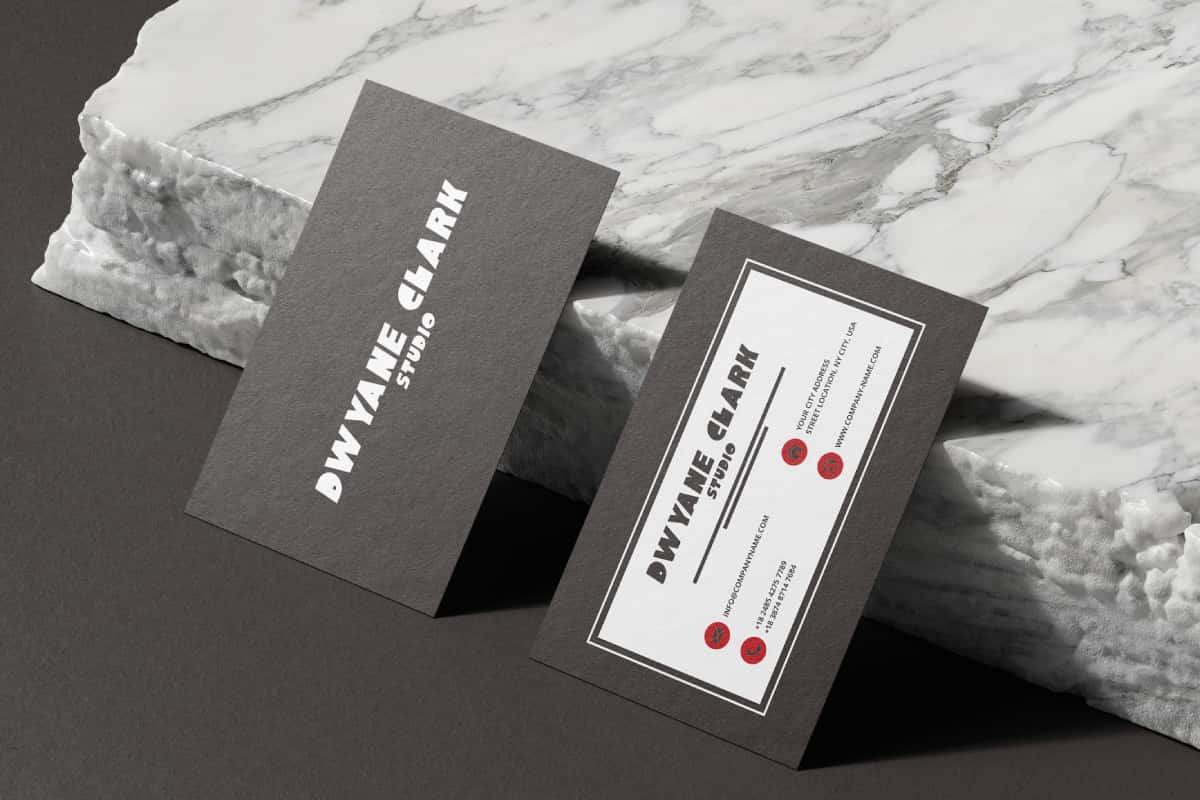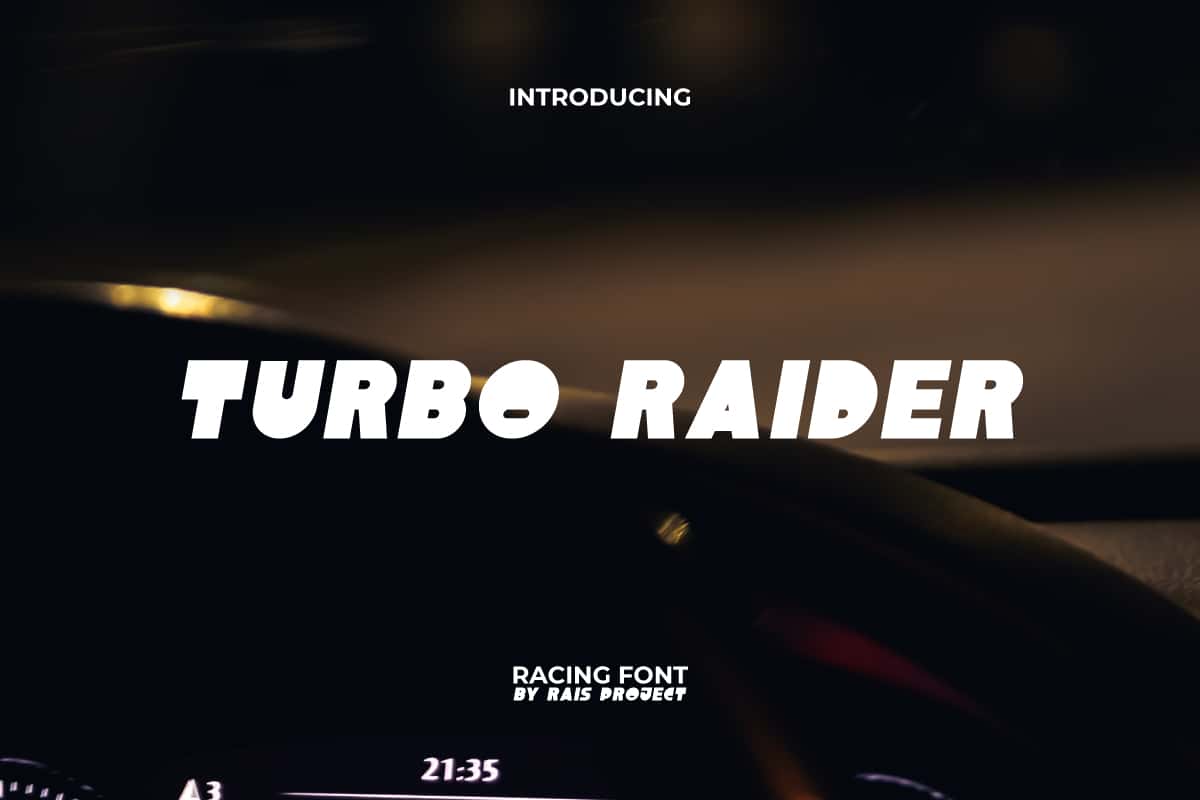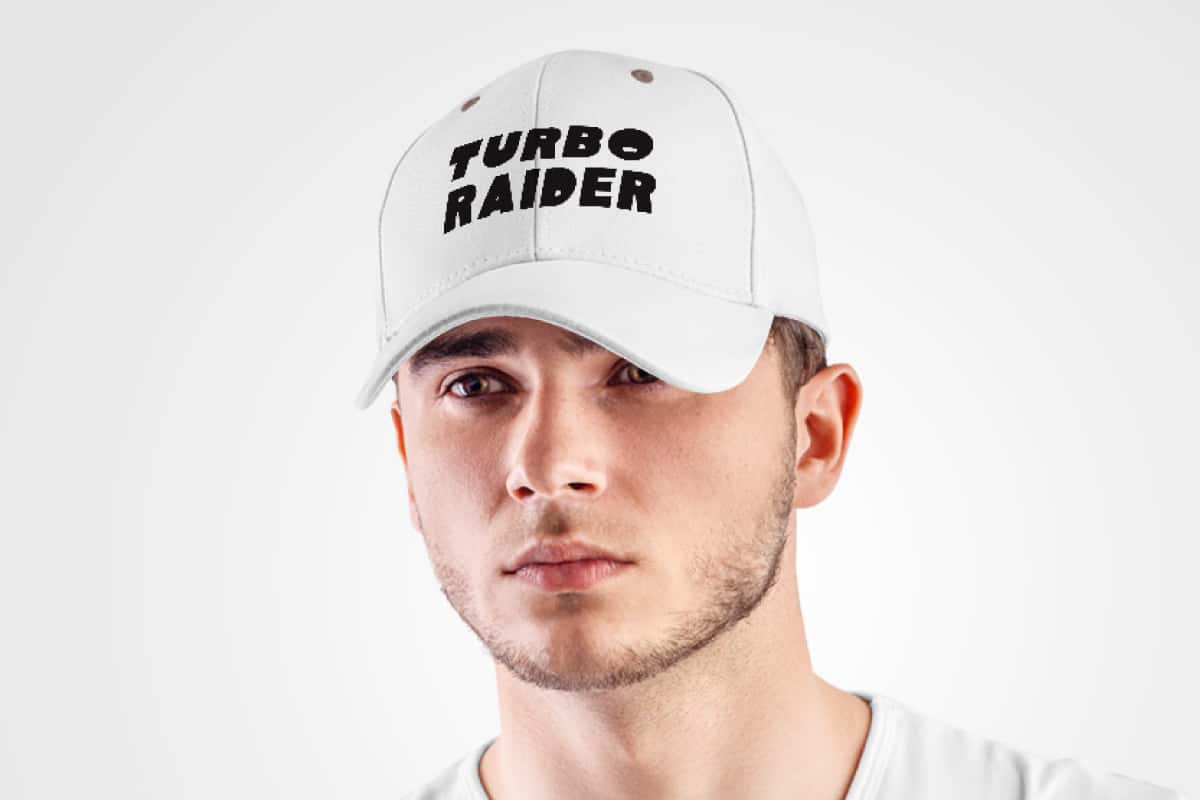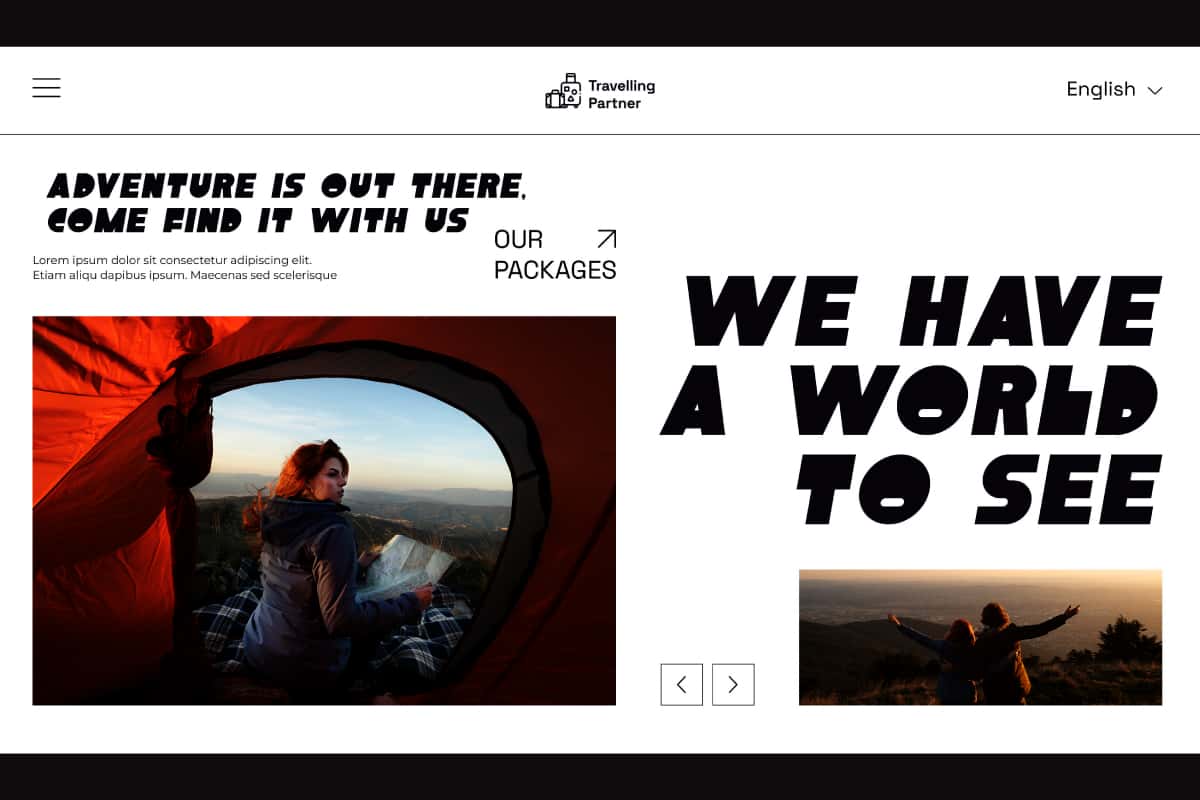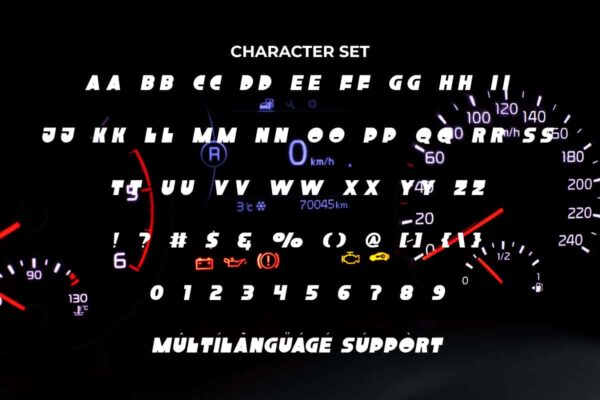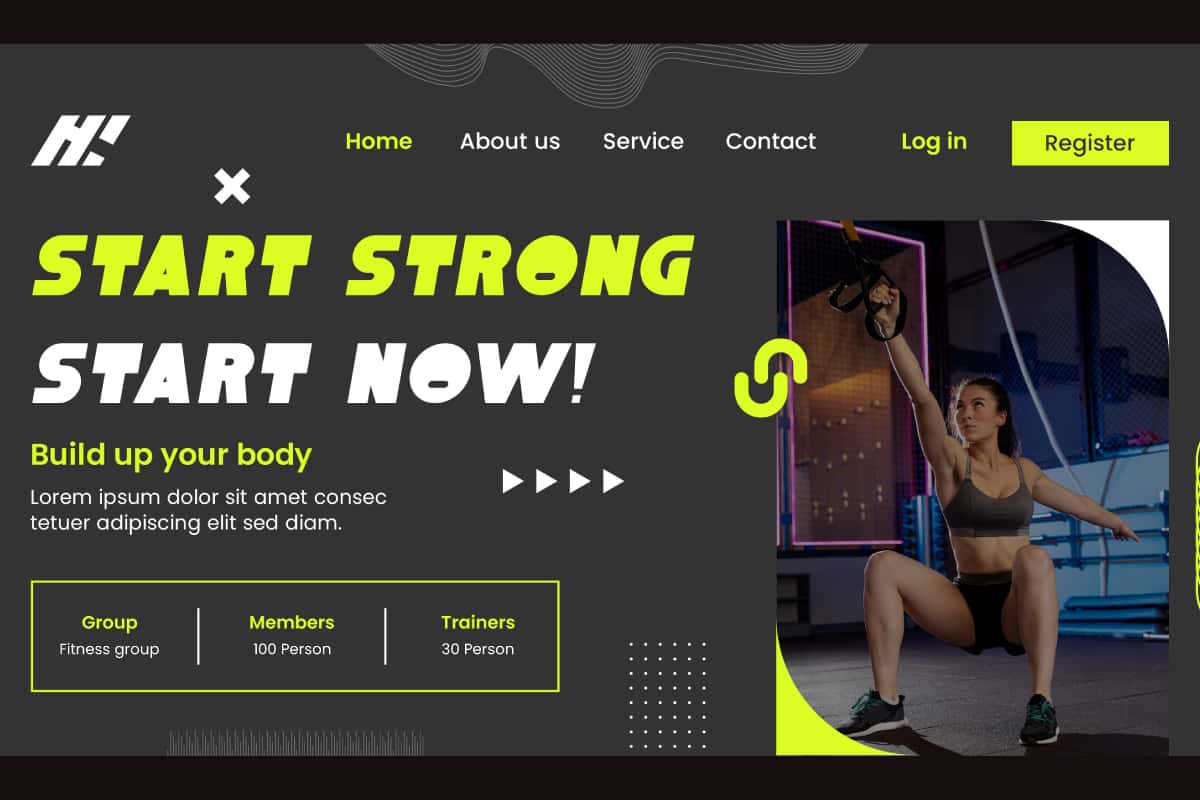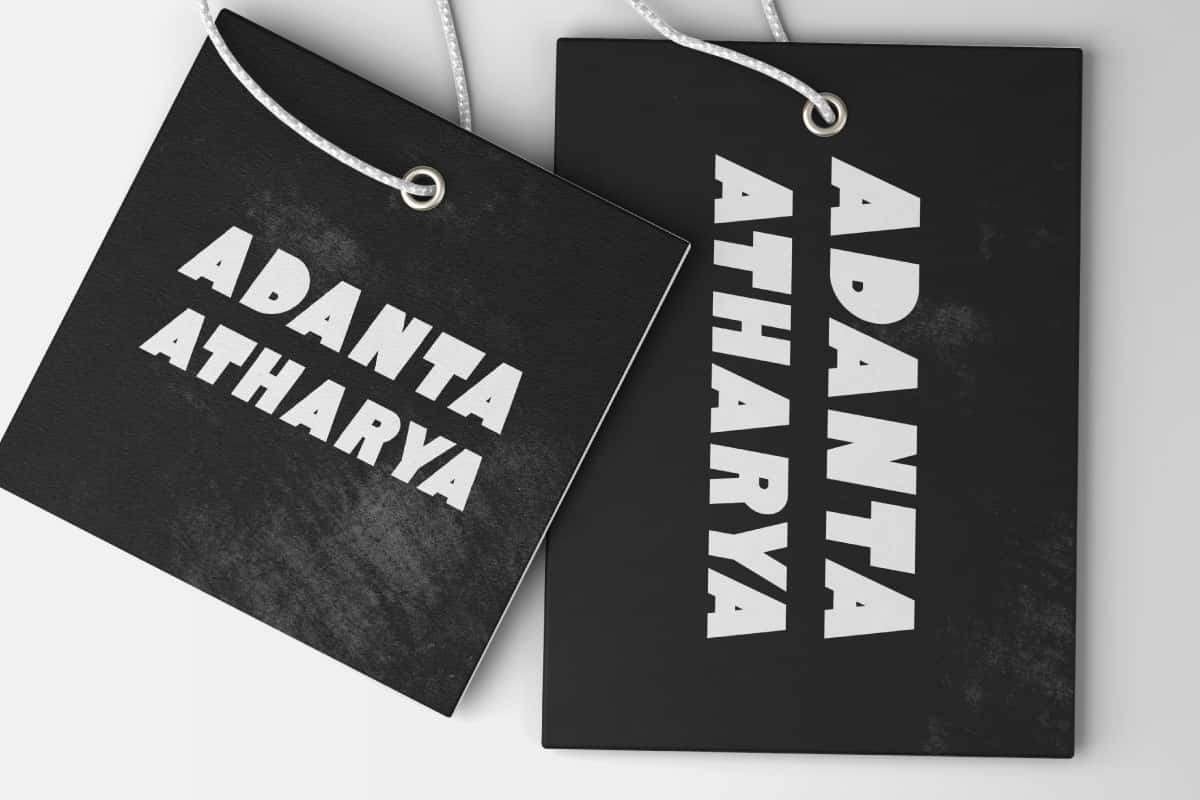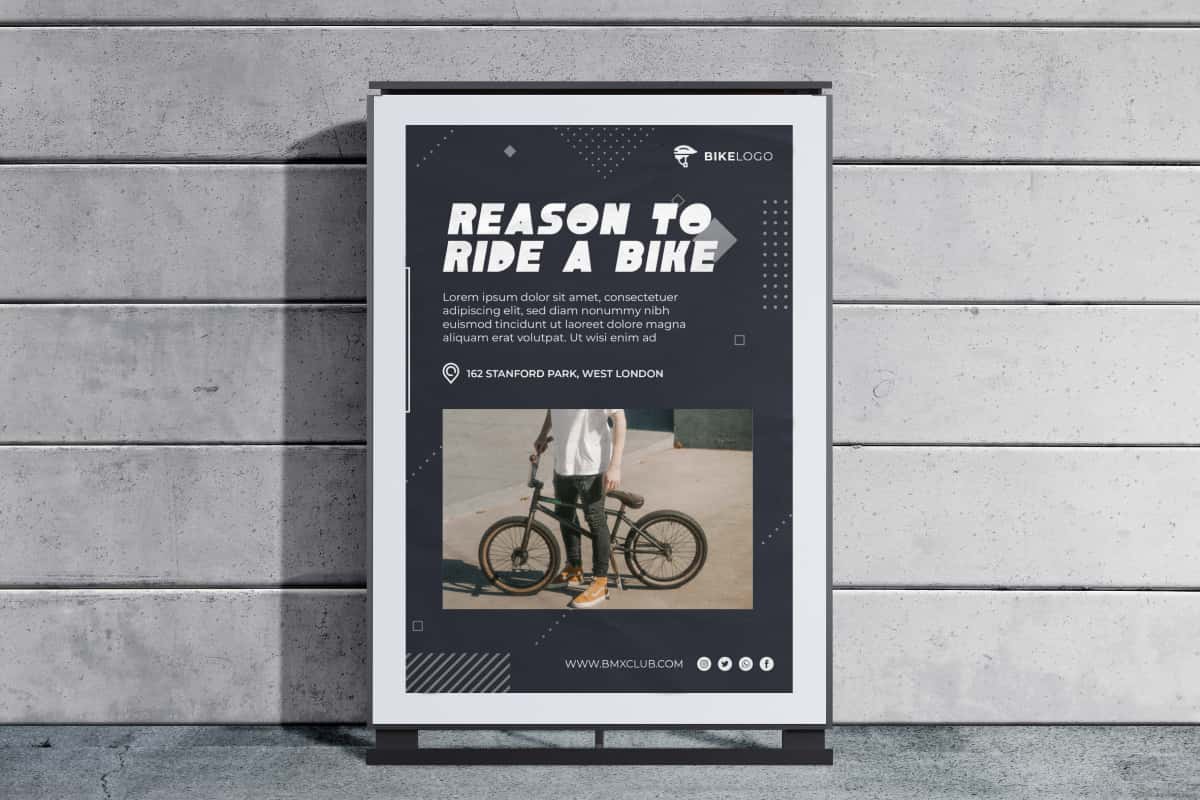
Turbo Raider Display Font
Turbo Raider Font is a playful but strong racing font with a unique and bold concept to make your design different from the others!
Turbo Raider Font is a playful but strong racing font with a unique and bold concept to make your design different from the others to make your designs standout. This font's characters look like they were made with thin marker strokes, resulting in bold letters. It will be great for custom design, poster, label, signage, stationery, product packaging, quotes, brand image, advertisement, invitation, marketing material, website page, and more!
Introducing Turbo Raider Display Font – a bold, fast, and futuristic typeface designed to give your projects a powerful edge. With sharp lines, dynamic curves, and an energetic aesthetic, Turbo Raider captures the spirit of speed, innovation, and modern design. Whether you’re working on sports branding, gaming graphics, automotive campaigns, or event posters, this font ensures your message hits with maximum impact.
Turbo Raider Display Font is built for designers and brands who want their visuals to stand out. Its striking letterforms are perfect for racing logos, esports teams, music covers, merchandise, and advertising campaigns that demand bold attention. Blending futuristic style with strong readability, Turbo Raider is versatile enough for both print and digital media, making it a valuable addition to any creative toolkit.
In a world where first impressions count, typography is the key to building a powerful brand identity. Turbo Raider Display Font helps you create designs that embody strength, speed, and confidence. Its bold and modern aesthetic makes it especially suited for industries like gaming, motorsports, technology, and entertainment.
Turbo Raider Display Font includes a full set of ALL CAPS for Uppercase and Lowercase Letters, Numerals, and large range of Punctuation. This cool font will be suitable for various industries, such as sports, automotive, fashion, game, barber shop, cafe, event or festival, photography, printing, publishing, etc.